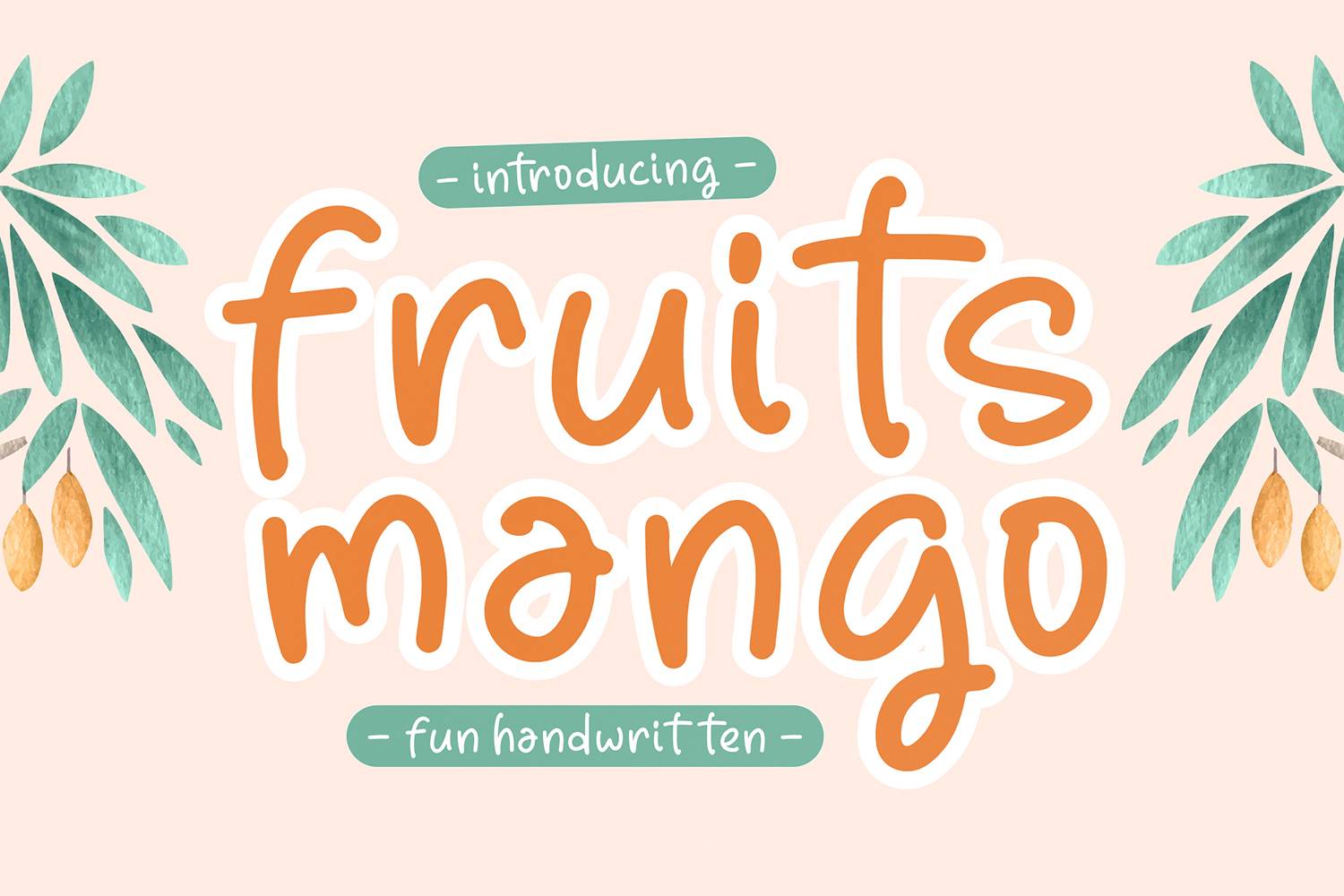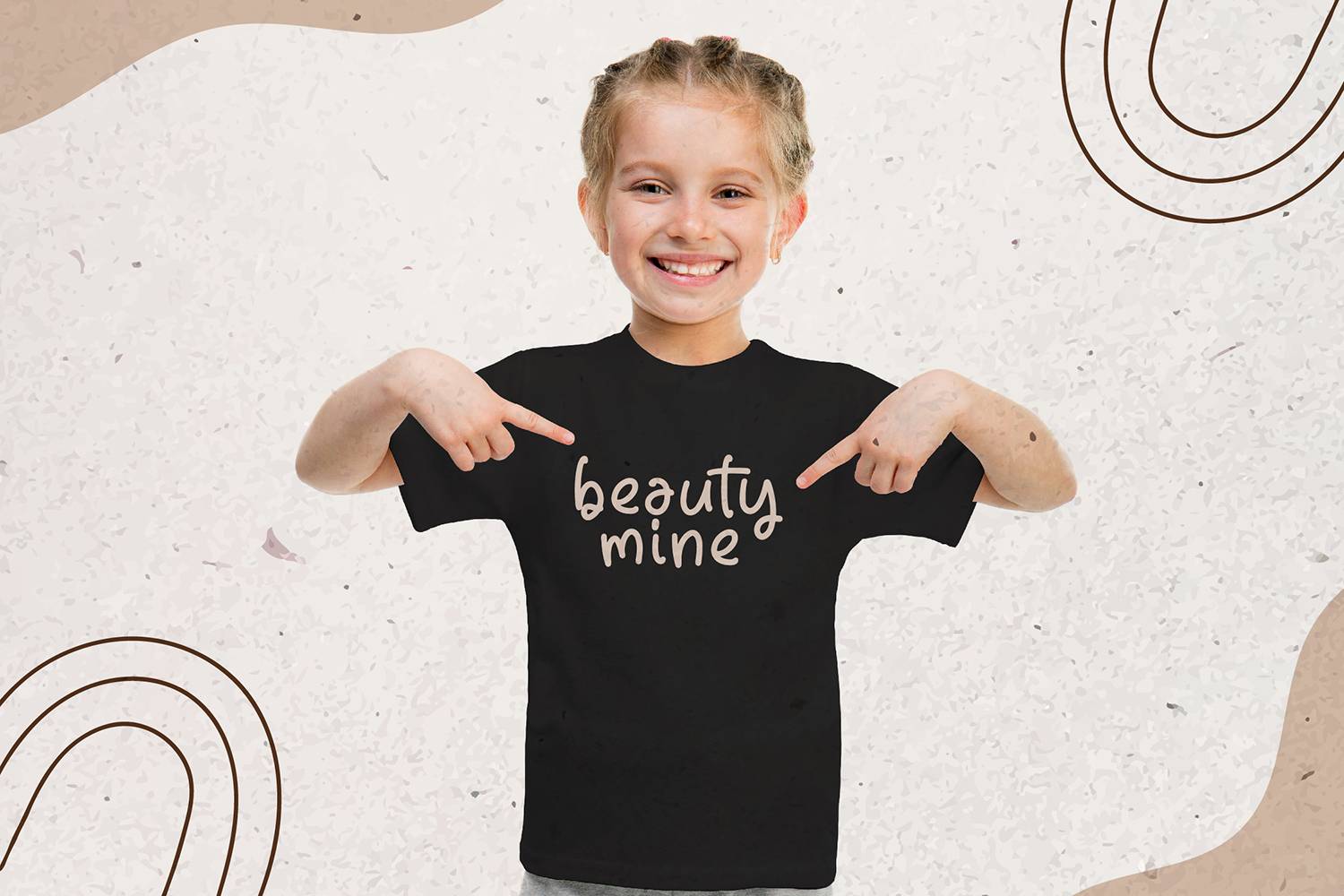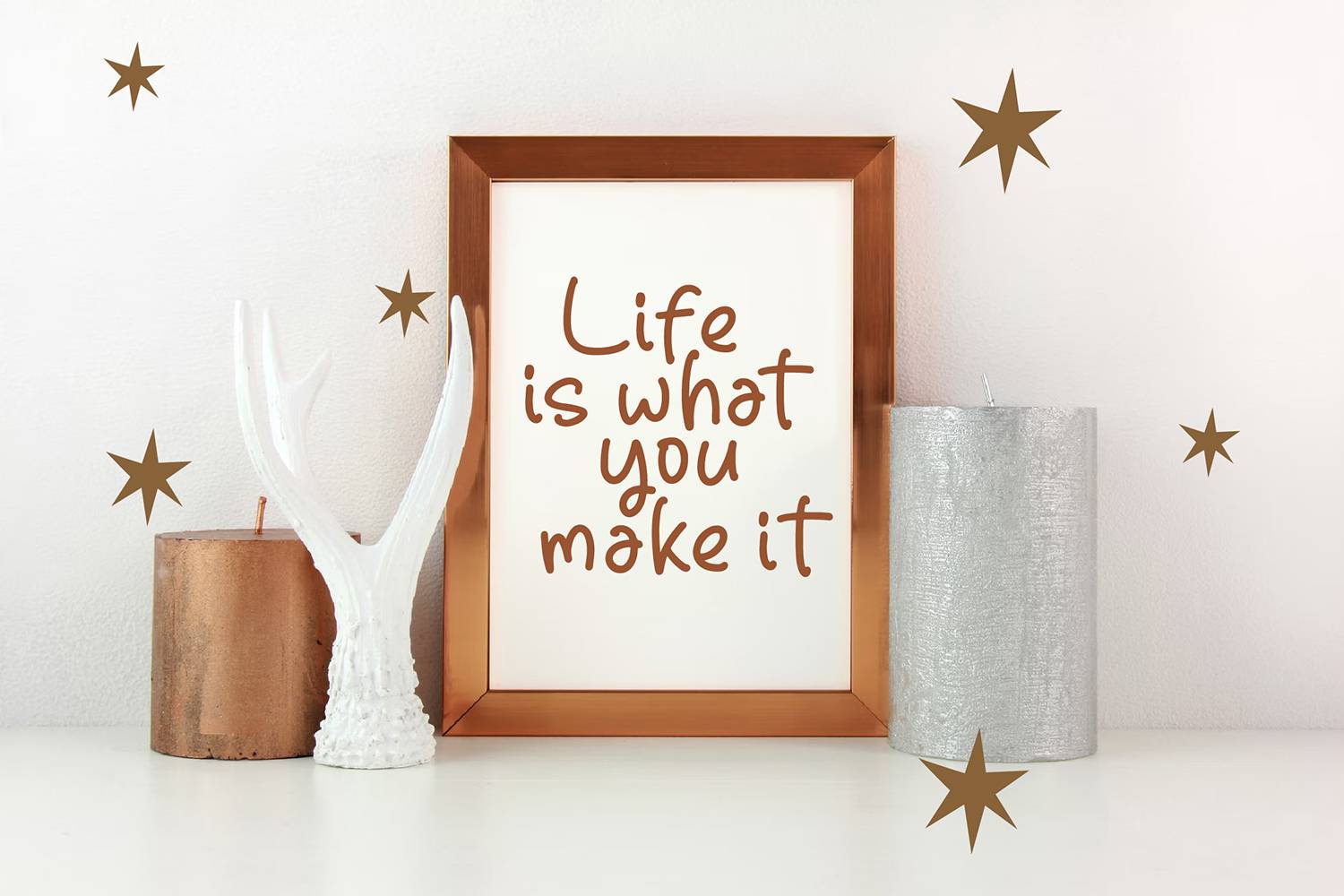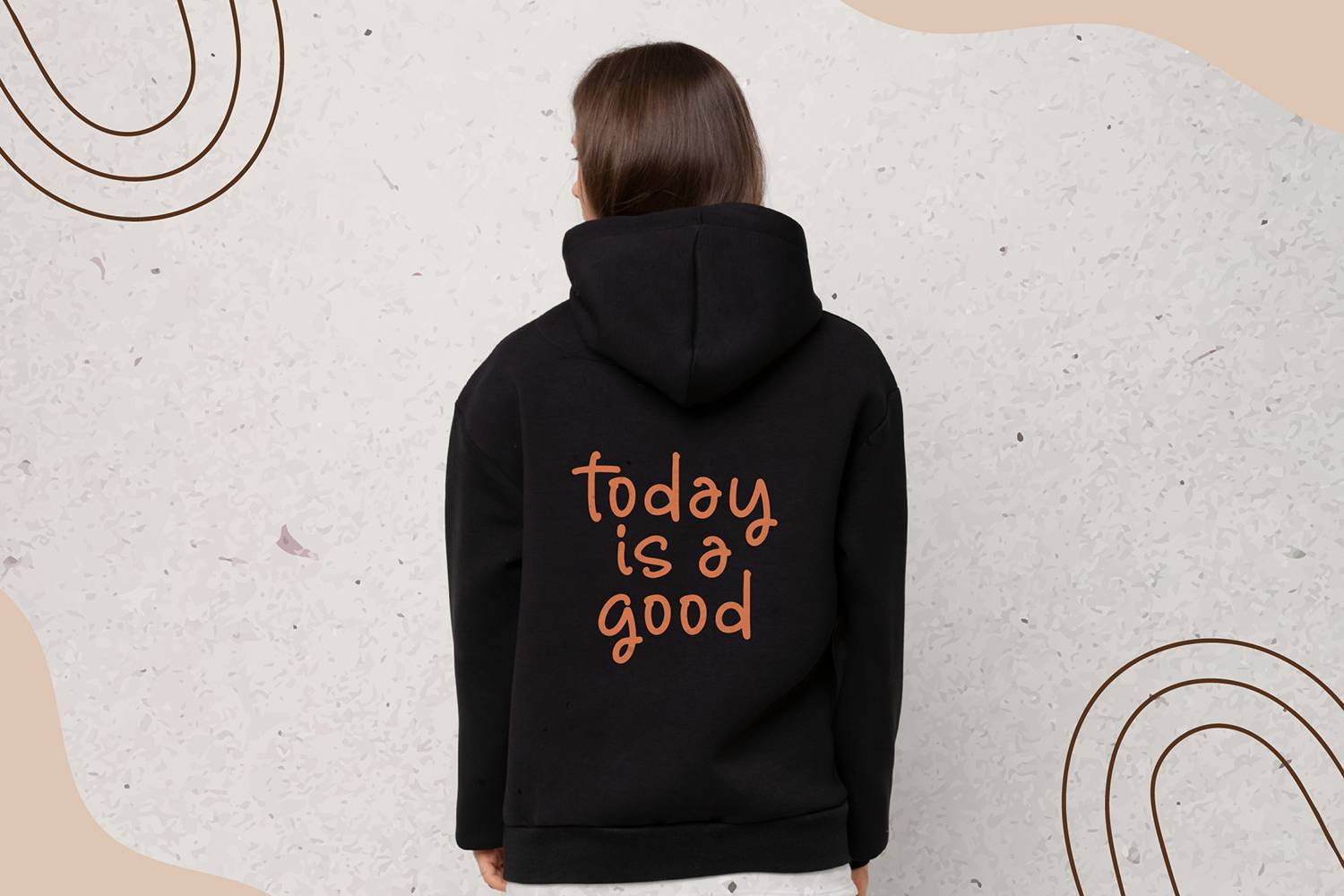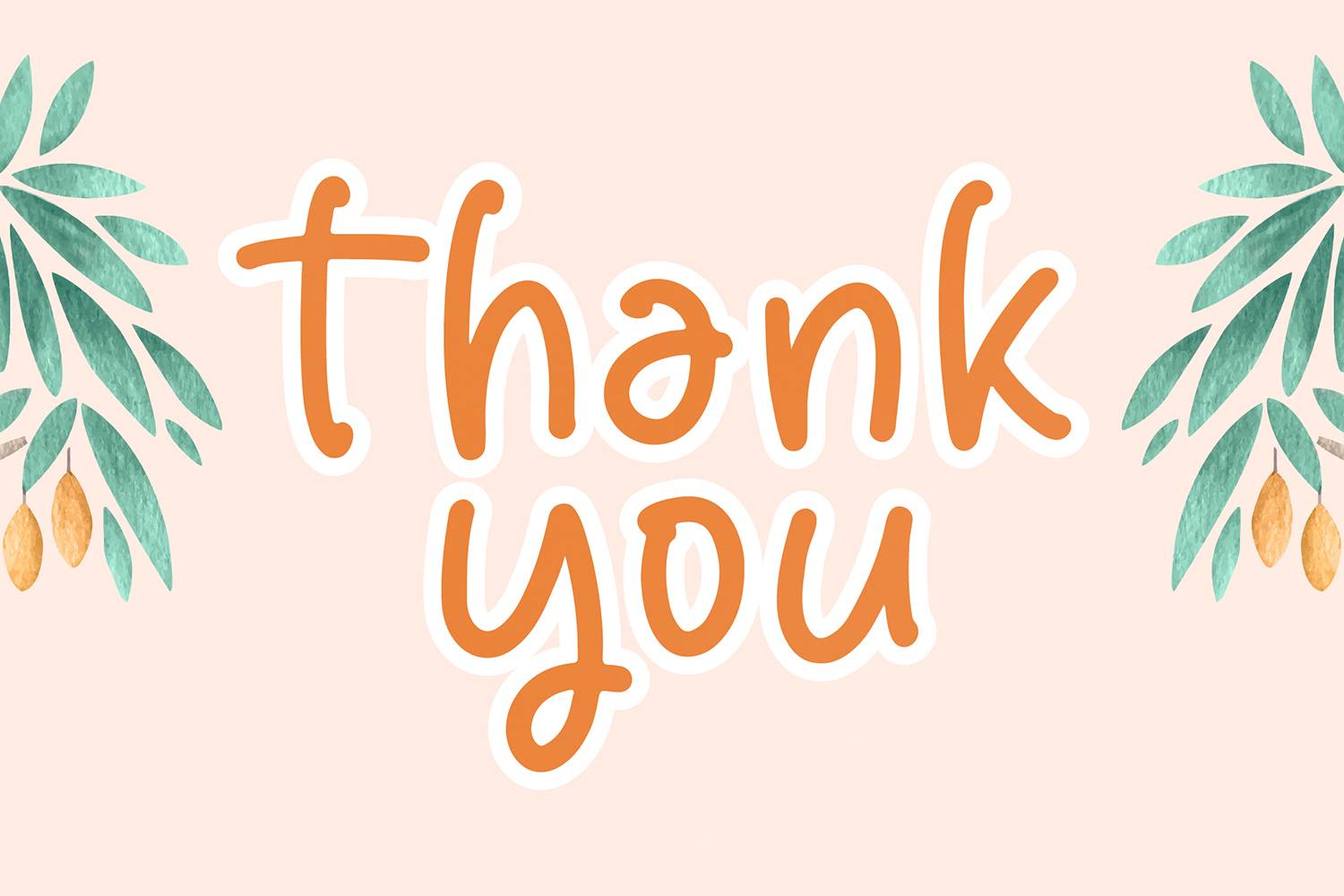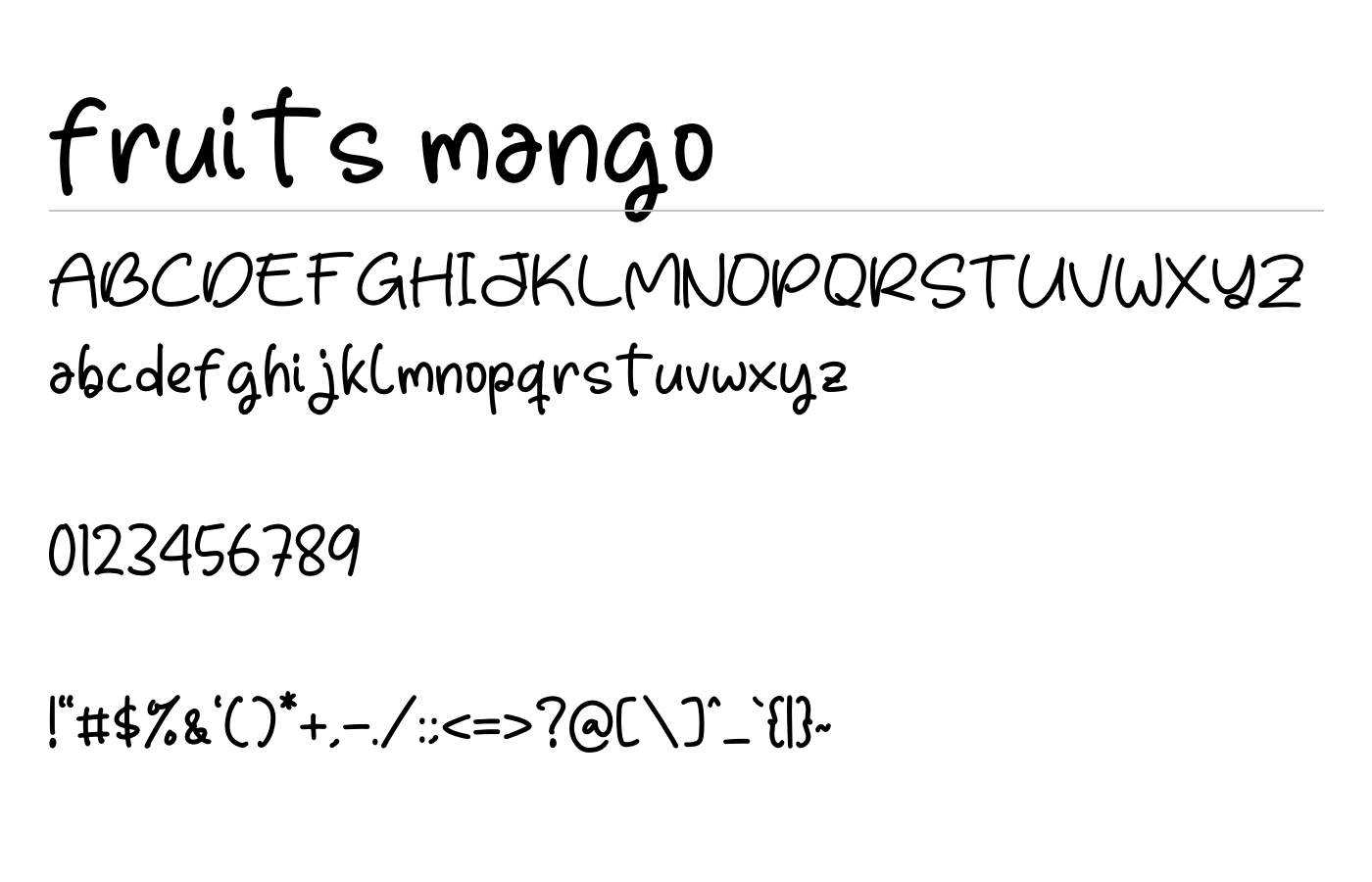
Fruits Mango is a playful and casual handwritten sans serif font featuring a light weight and slightly narrow width with rounded, friendly letterforms. Its irregular strokes and quirky details give it a warm, approachable personality that works well for informal designs like kids’ materials, invitations, or lifestyle branding. This font’s natural, relaxed style makes it ideal for projects seeking a personal and fun touch.
Fruits Mango Font
About Fruits Mango Font